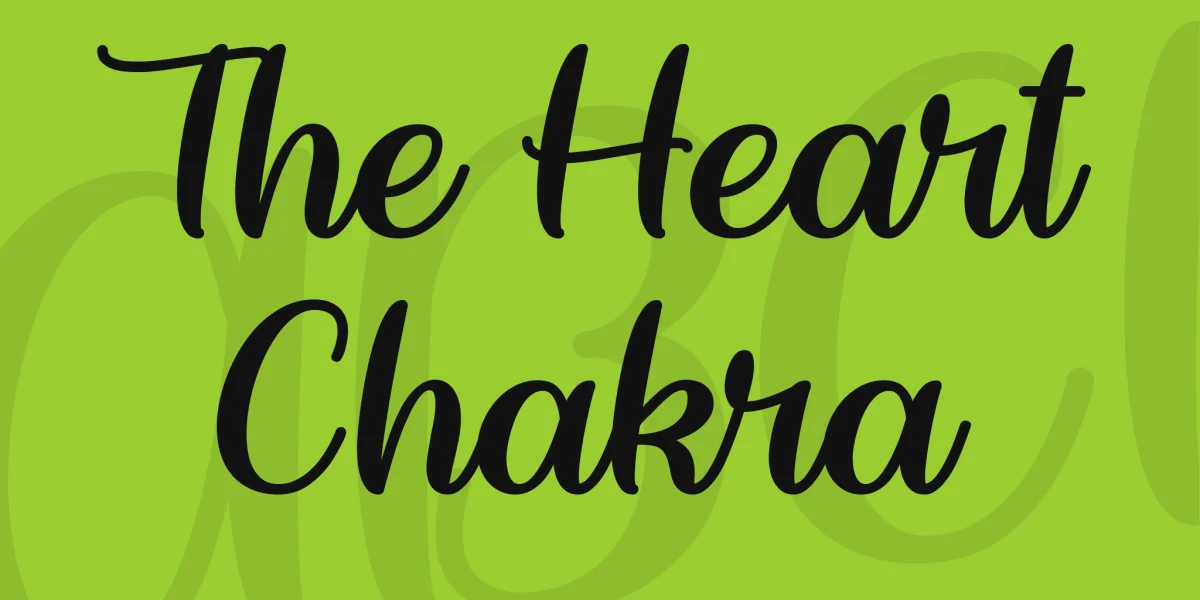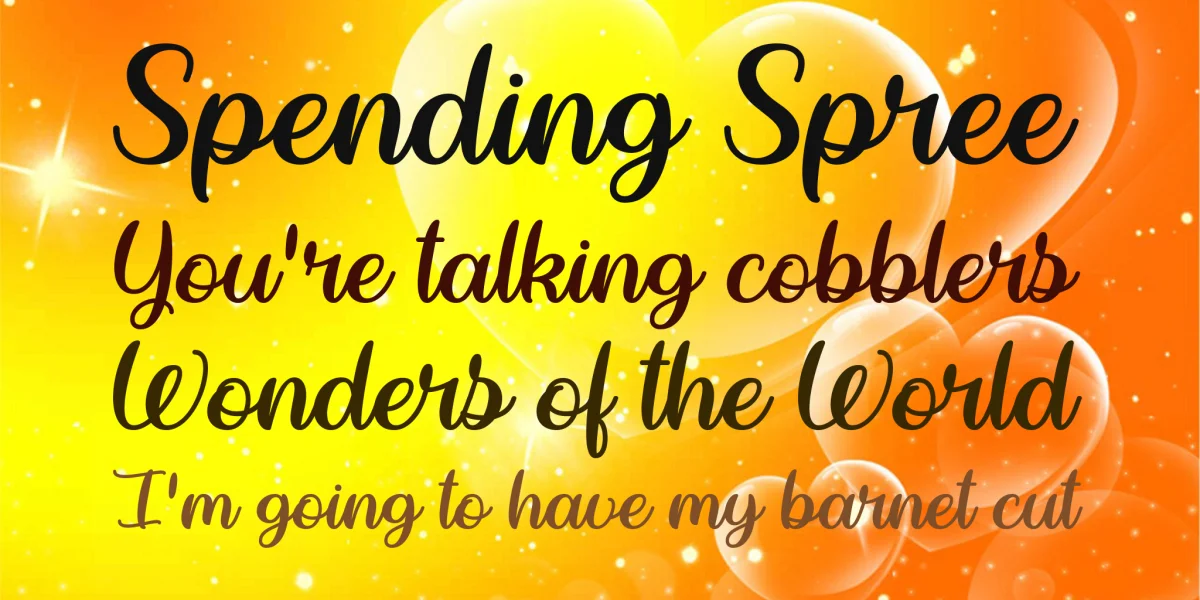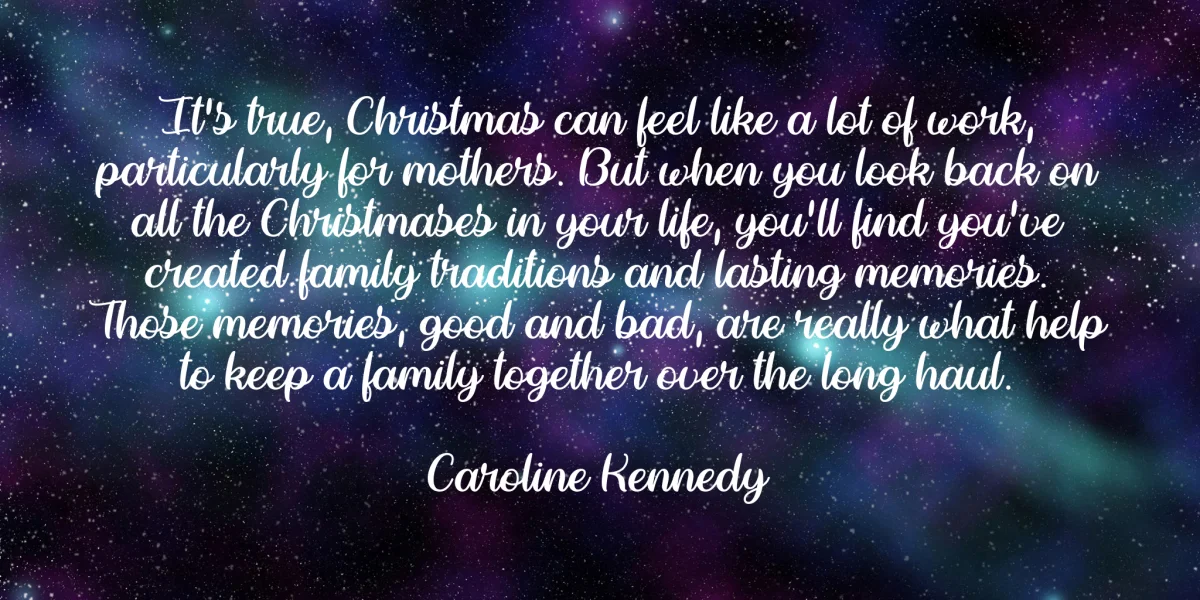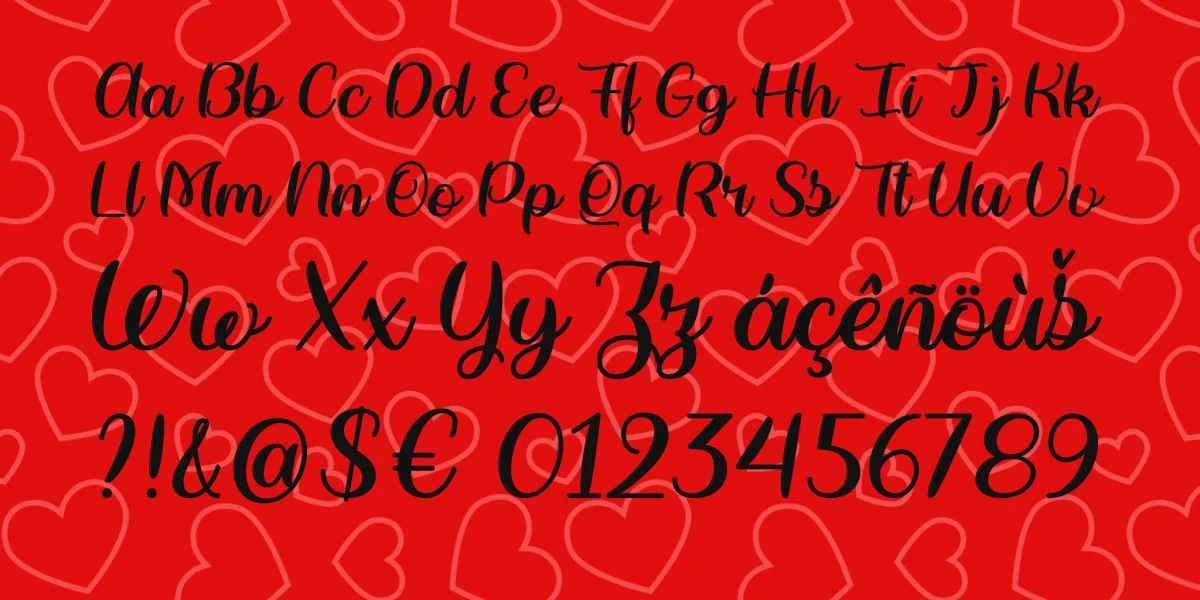
SPECIAL SYMBOLS Type * (asterisk) for the open heart
Type | (vertical bar) for the solid heart
Type { (left curly brace) for the solid heart doodle
Type } (right curly brace) for the open heart doodle